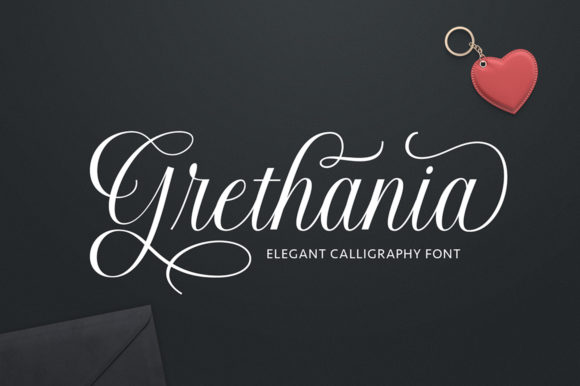
Introducing Grethania Font: Elevate Your Designs with Elegance and Sophistication
In the world of typography, a well-crafted font can make all the difference in elevating your design to new heights. If you’re on the hunt for a typeface that exudes elegance, sophistication, and a touch of modern flair, look no further than Grethania Font. This stunning handwritten font is designed to add a touch of luxury to any project, making it perfect for designers, artists, and crafty enthusiasts alike.
What Makes Grethania Font So Special?
Grethania Font is an elegant and flowing handwritten font that boasts a range of impressive features. Here are just a few reasons why this font stands out from the crowd:
- PUA Encoding: Grethania Font is PUA (Private Use Area) encoded, which means you can access all of the glyphs and swashes with ease. This makes it simple to add a touch of personality to your designs.
- Varying Baseline: The font features a varying baseline, which gives it a sense of fluidity and movement. This adds a touch of elegance and sophistication to any design.
- Smooth Lines: Grethania Font boasts smooth, flowing lines that give it a sense of continuity and harmony. This makes it perfect for designs where you want to create a sense of flow and cohesion.
- Gorgeous Glyphs: The font comes with a range of gorgeous glyphs, including stunning alternates and swashes. These allow you to add a touch of personality to your designs and create something truly unique.
Design Inspiration: How to Use Grethania Font
Grethania Font is incredibly versatile, making it perfect for a wide range of design projects. Here are a few ideas to get you started:
- Wedding Invitations: The elegant, flowing lines of Grethania Font make it perfect for wedding invitations, save-the-dates, and other wedding-related designs.
- Branding and Packaging: The font’s sophisticated, luxurious feel makes it ideal for branding and packaging designs where you want to create a high-end feel.
- Stationery and Paper Goods: Grethania Font is perfect for creating stylish stationery, paper goods, and other printed materials where you want to add a touch of elegance.
- Digital Designs: The font’s smooth lines and gorgeous glyphs make it perfect for digital designs, including social media graphics, blog headers, and more.
Typography Tips: Getting the Most Out of Grethania Font
To get the most out of Grethania Font, here are a few typography tips to keep in mind:
- Play with Size and Scale: Experiment with different sizes and scales to create visual interest and hierarchy in your designs.
- Mix and Match Glyphs: Take advantage of the font’s gorgeous glyphs and swashes to add a touch of personality to your designs.
- Experiment with Color: Grethania Font looks stunning in a range of colors, from rich jewel tones to soft pastels. Experiment with different colors to find the perfect fit for your design.
Why Choose Grethania Font?
With so many amazing fonts on the market, why choose Grethania Font? Here are just a few reasons why this font stands out from the crowd:
- Unique and Elegant: Grethania Font is a truly unique and elegant typeface that will add a touch of sophistication to any design.
- Highly Versatile: The font is incredibly versatile, making it perfect for a wide range of design projects.
- Easy to Use: Grethania Font is PUA encoded, making it easy to access all of the glyphs and swashes.
In conclusion, Grethania Font is an exceptional handwritten font that is sure to elevate your designs to new heights. With its elegant, flowing lines, gorgeous glyphs, and stunning alternates, this font is perfect for designers, artists, and crafty enthusiasts alike. Whether you’re looking to create a luxurious brand identity, a stylish wedding invitation, or a beautiful piece of artwork, Grethania Font is the perfect choice.